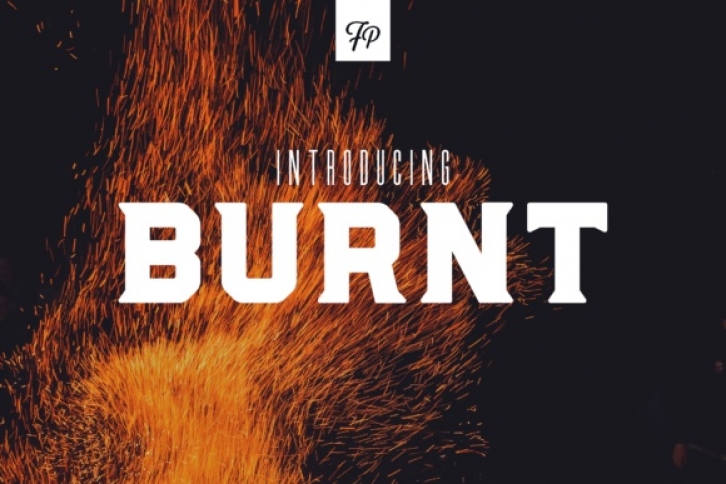
Burnt is a bold, strong, and unique display font. This will be great for any design that requires an impactful feel and a strong statement. The bold weight as well as the serifs help increase legibility at a small size, so this font doubles as a display and body text option.